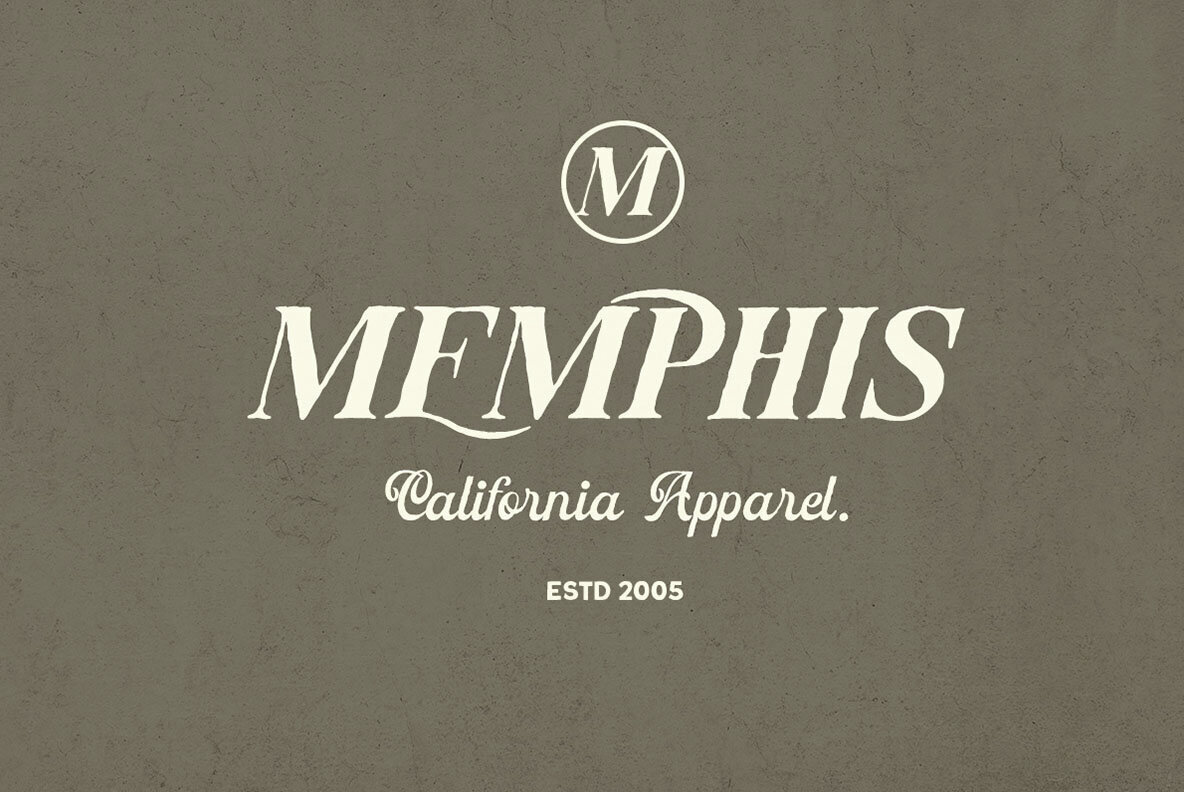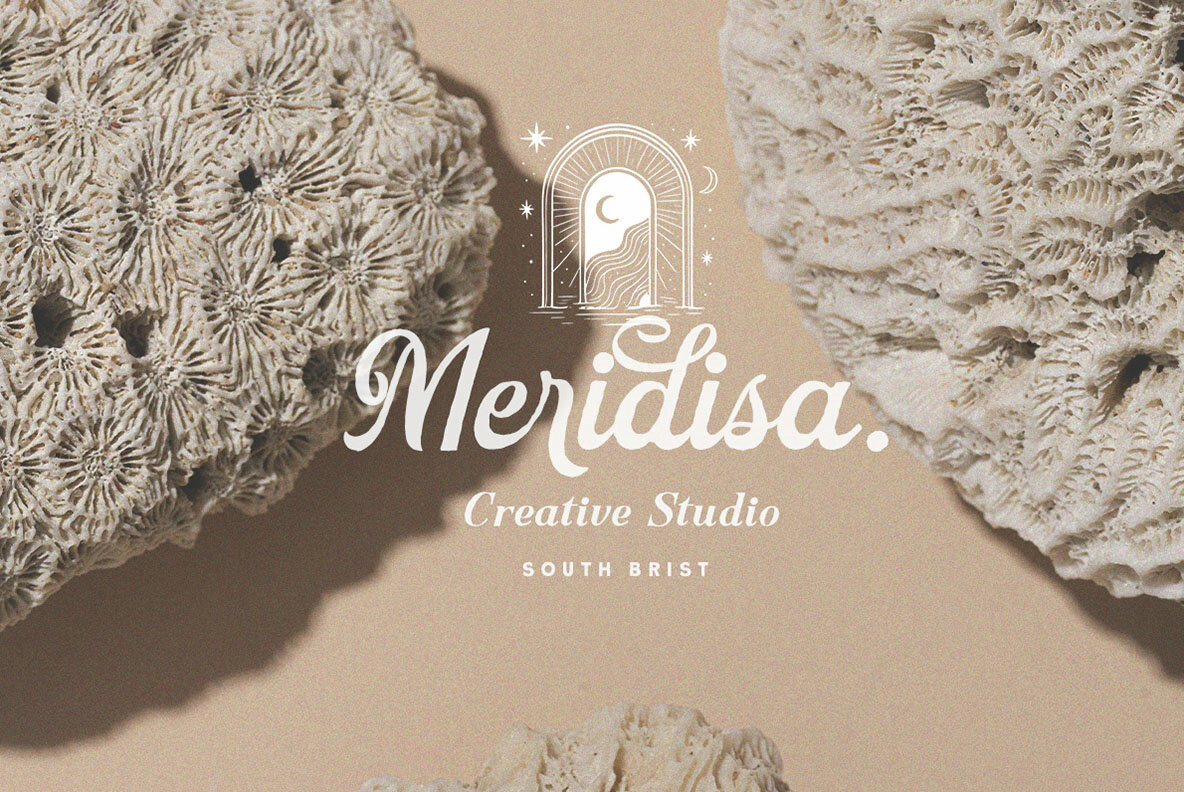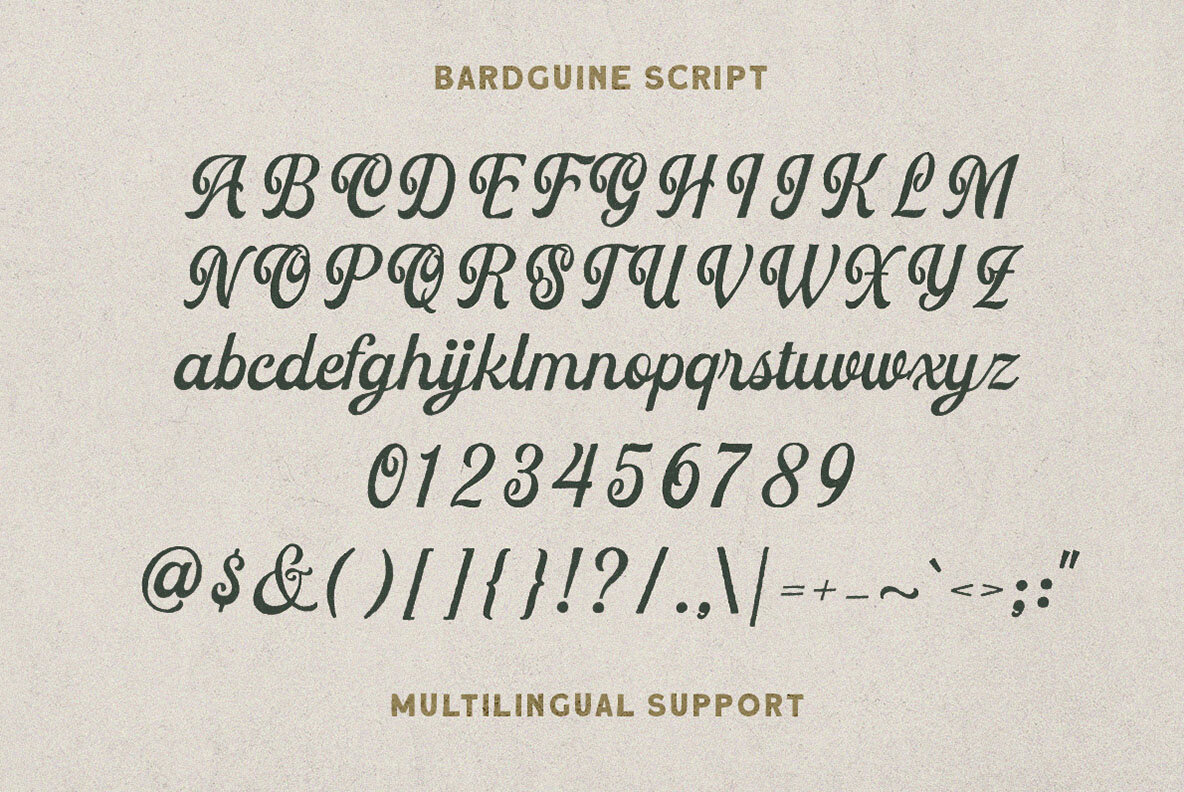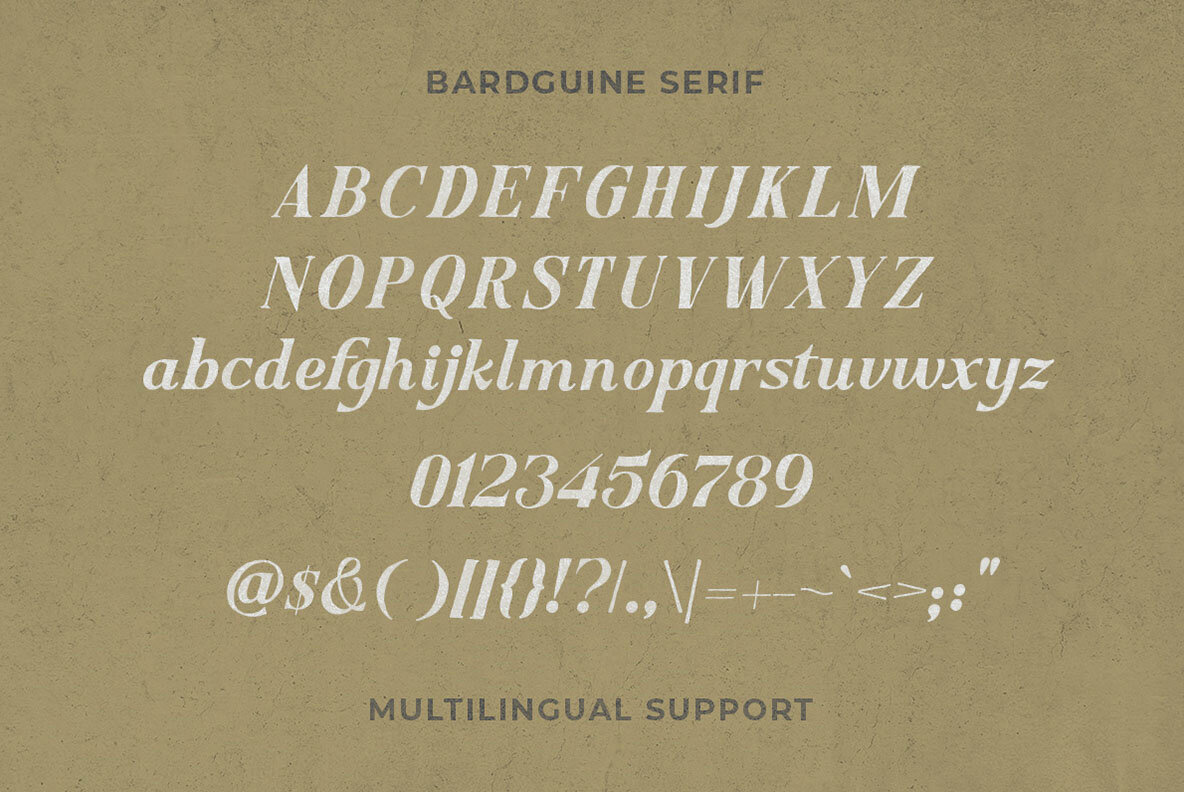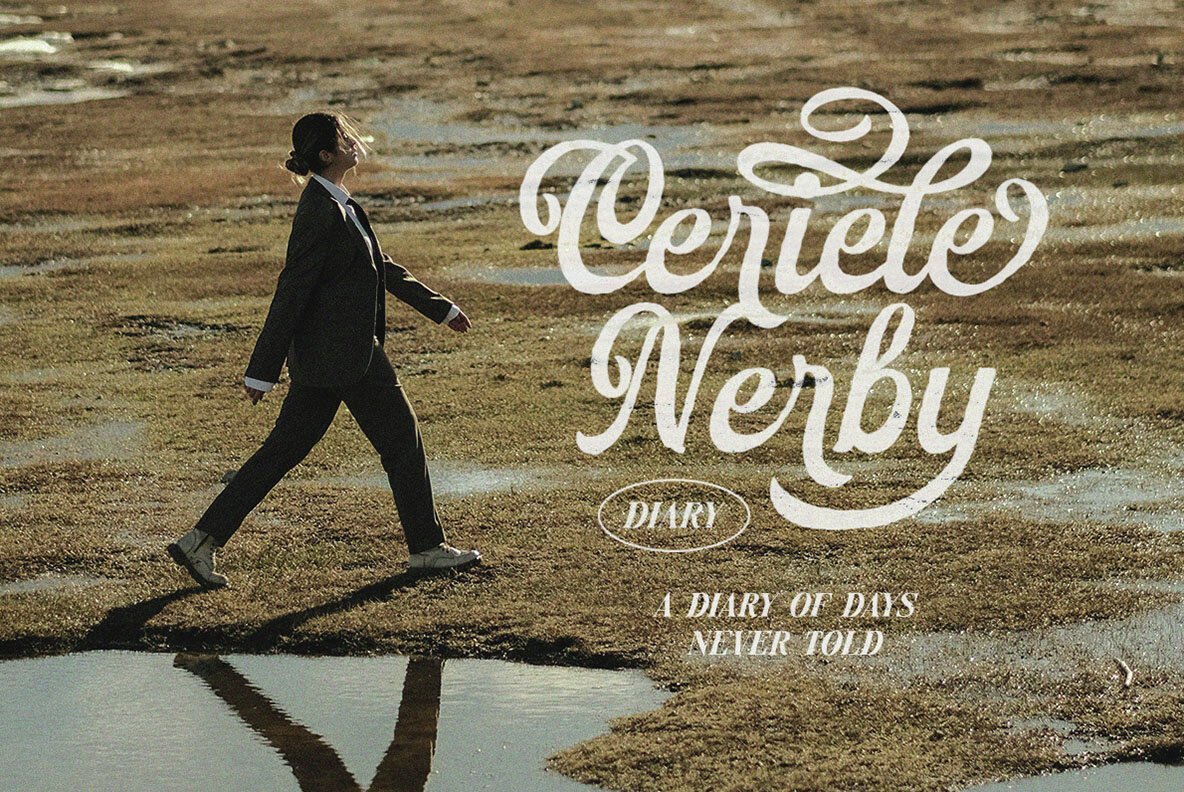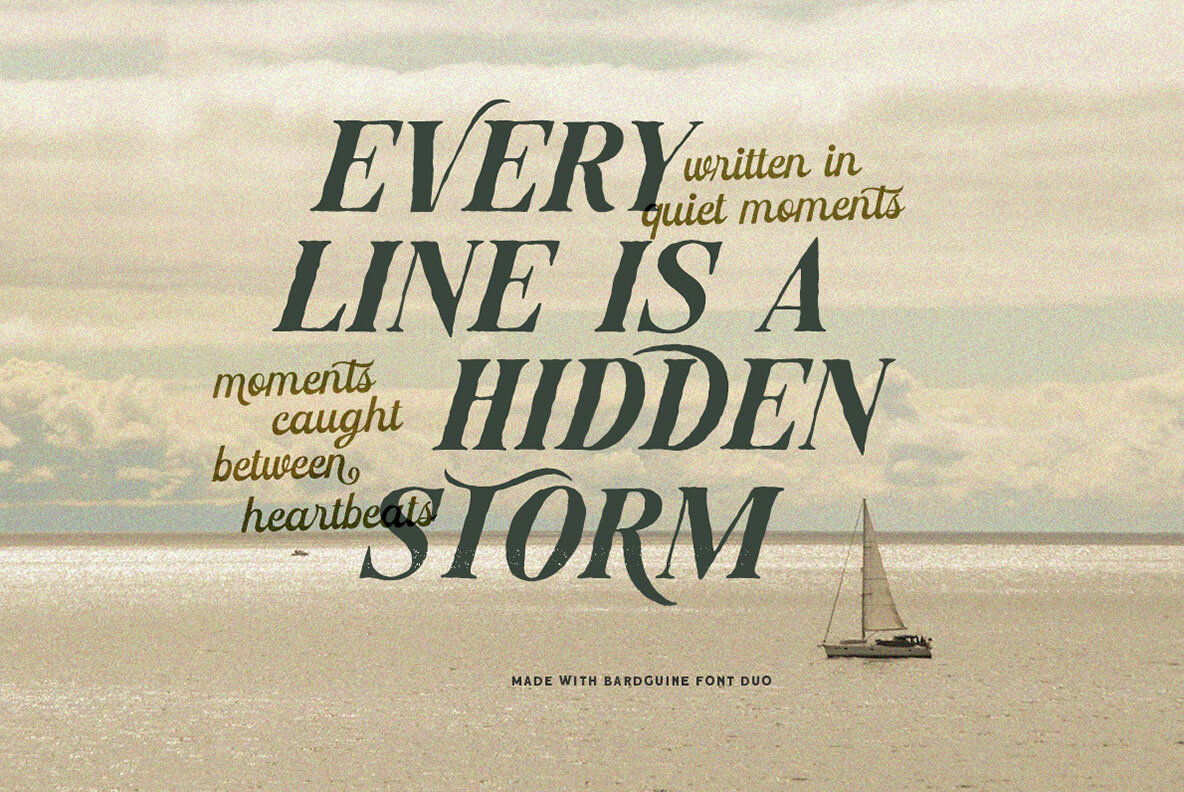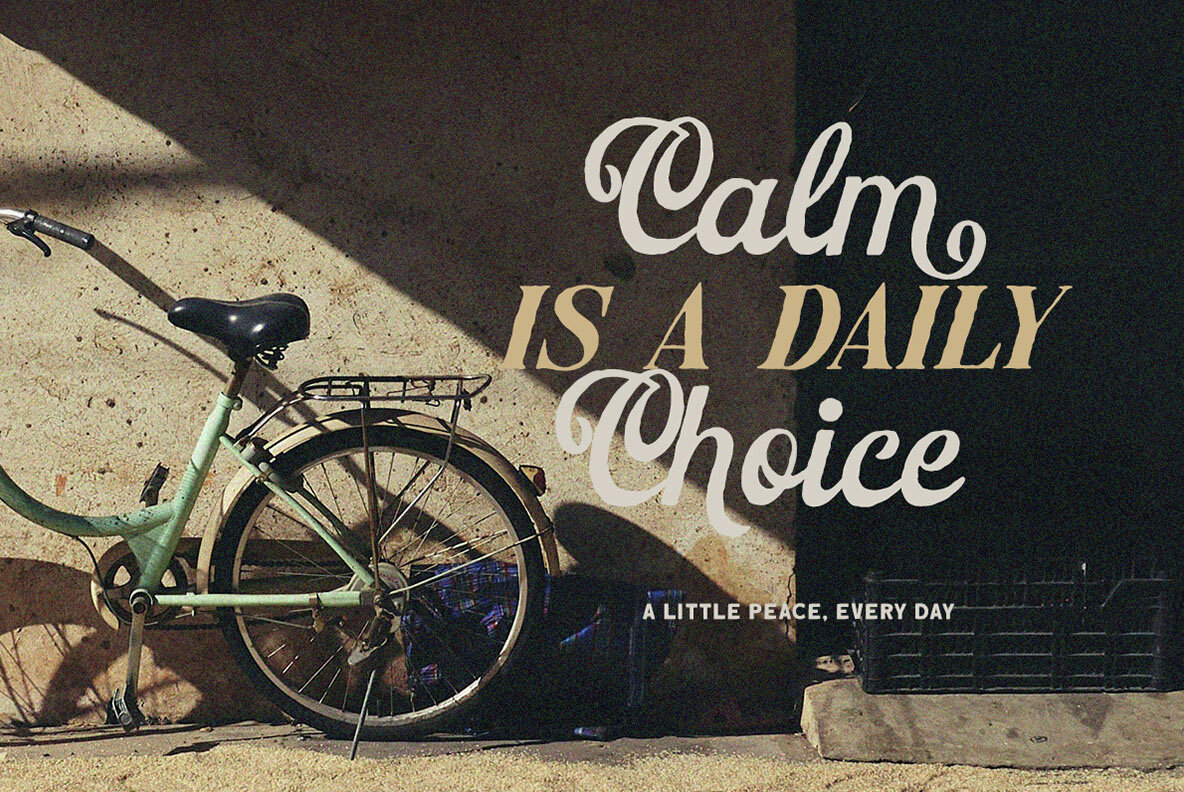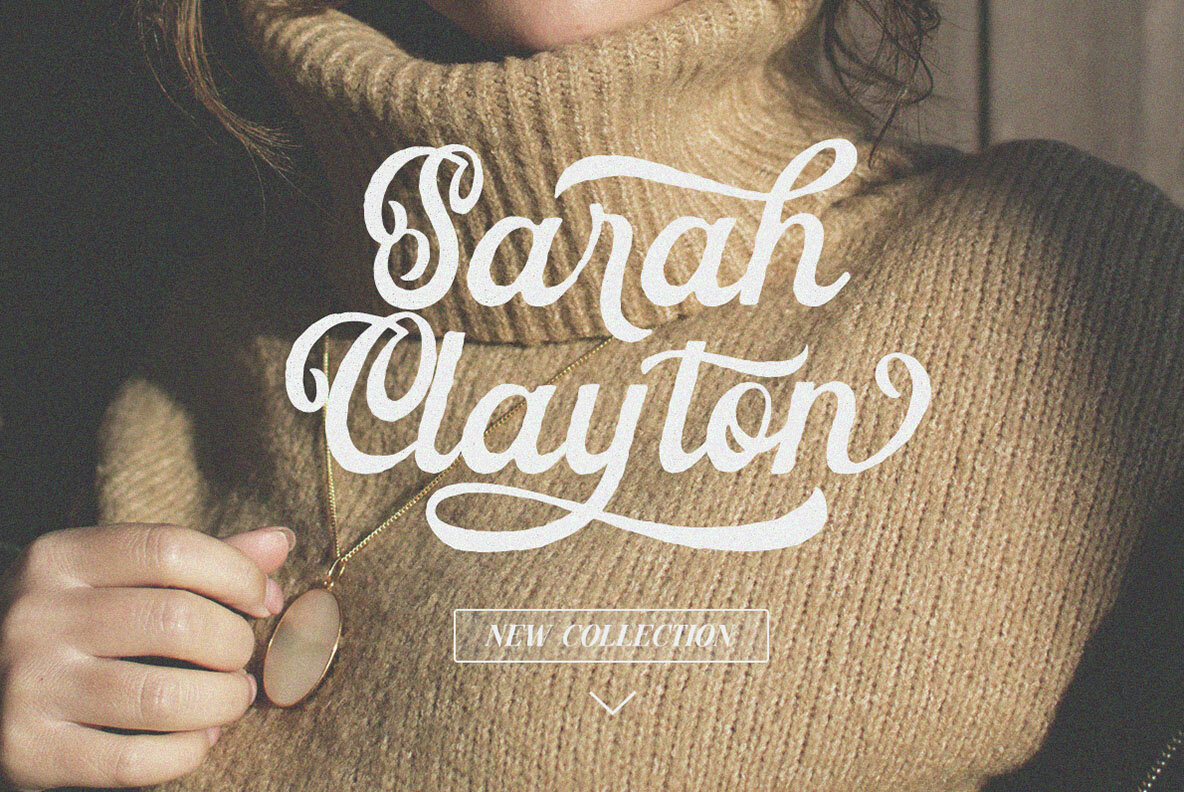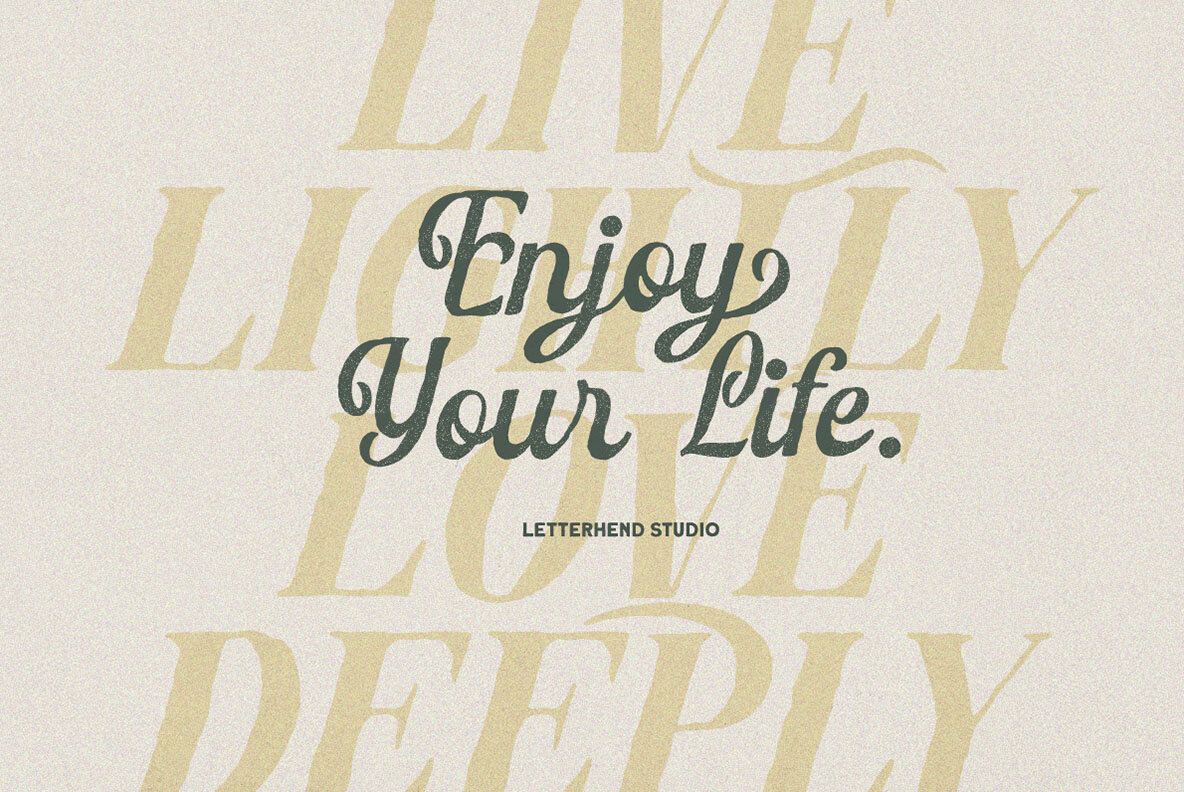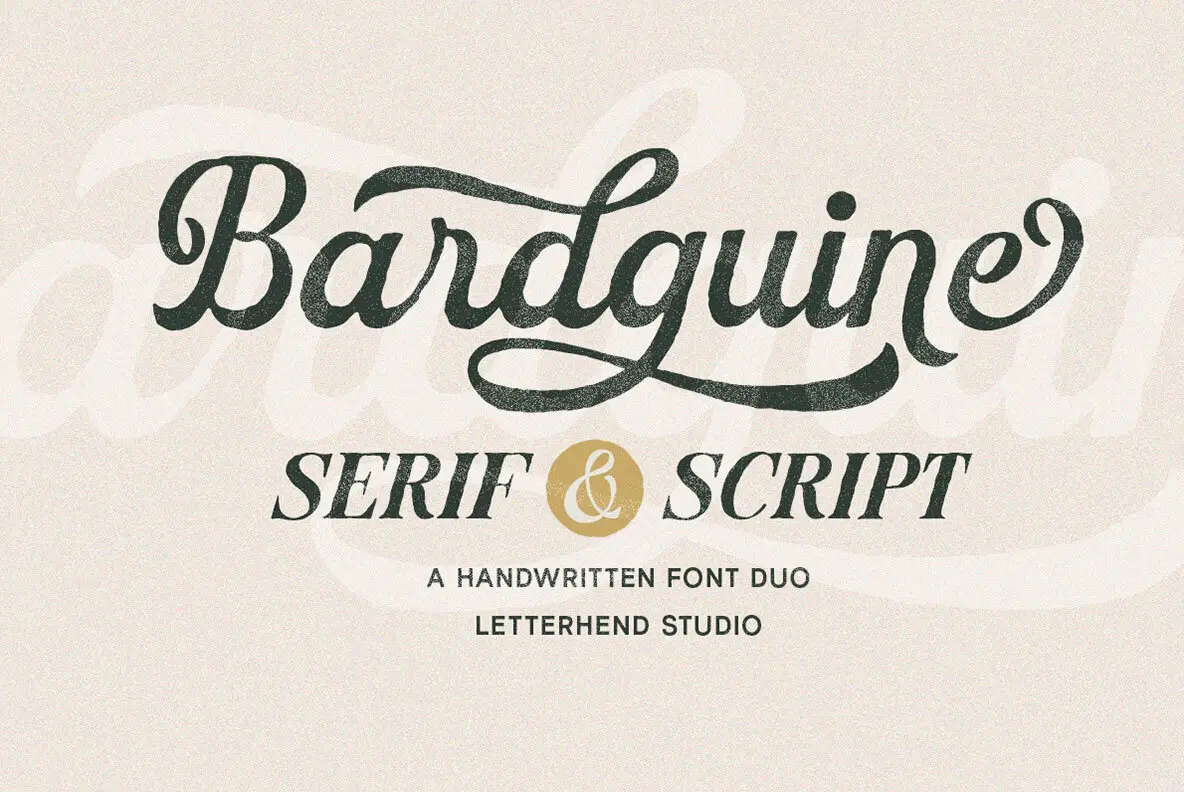
Bardguine Font
Bardguine Script
Bardguine Serif
Discover Bardguine, a delightful handwritten font duo perfectly balancing the elegance of flowing script with the timeless strength of a classic serif. Crafted to harmonize seamlessly, this pair allows you to blend playful curves with bold, confident lettering, creating a cohesive and dynamic look for your projects. Maximize your creativity by using software that supports OpenType features and Glyphs panels, such as Adobe apps and Corel Draw, to explore the full range of Glyph variations Bardguine offers.Bardguine Handwritten Font Duo